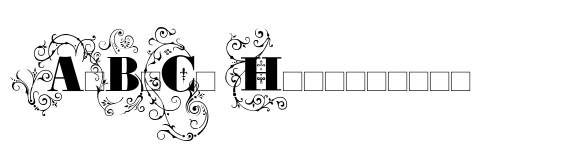
Grave Ornamental
von Intellecta Design
Die Schriftfamilie Grave Ornamental wurde von Paulo W entworfen und von Intellecta Design veröffentlicht. Grave Ornamental enthält 1 Stile.
Grave is a Intellecta's best seller, a classic font design remastered, distressed and antique, merging the bodonian style with tendrils and victorian ornaments. Ideal to use in in display purposes for a stylized type design. Its family of fonts has too
Grave Ornaments
, a dingbat/decorative display font featuring many different styles of flourishes and ornaments, great for a vintage antique feel. Completes the collection
Grave Plus
, where six different fonts has different styles of victorian fleurons and ornaments merging with a bodonian shaded typeface in great style. A beautiful and big family, available single or in pack with an attractive price.
Designer: Paulo W